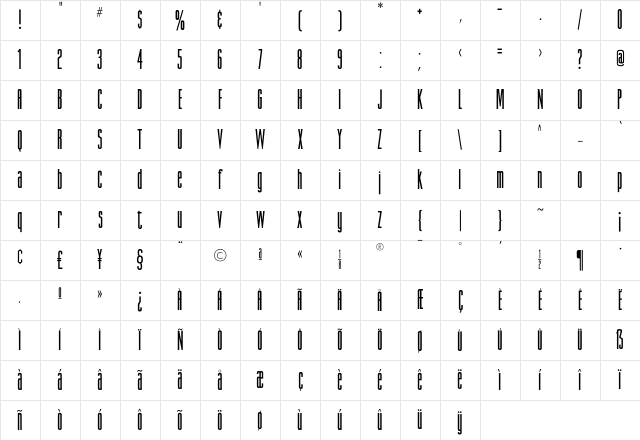
GiottoBold Regular Free Font
GiottoBold Regular
Design Context for GiottoBold
GiottoBold is a composed and adaptable typeface that performs quietly and consistently across a wide range of design contexts. Its bold stroke weight gives it real presence on the page.